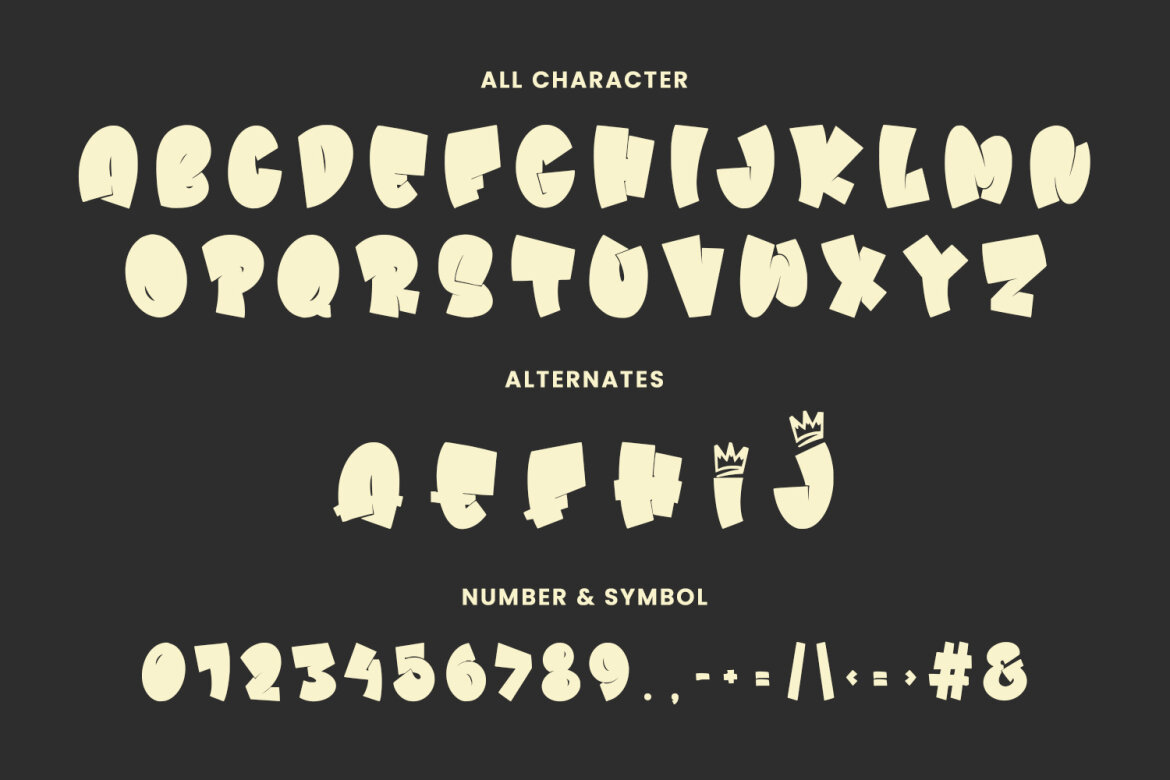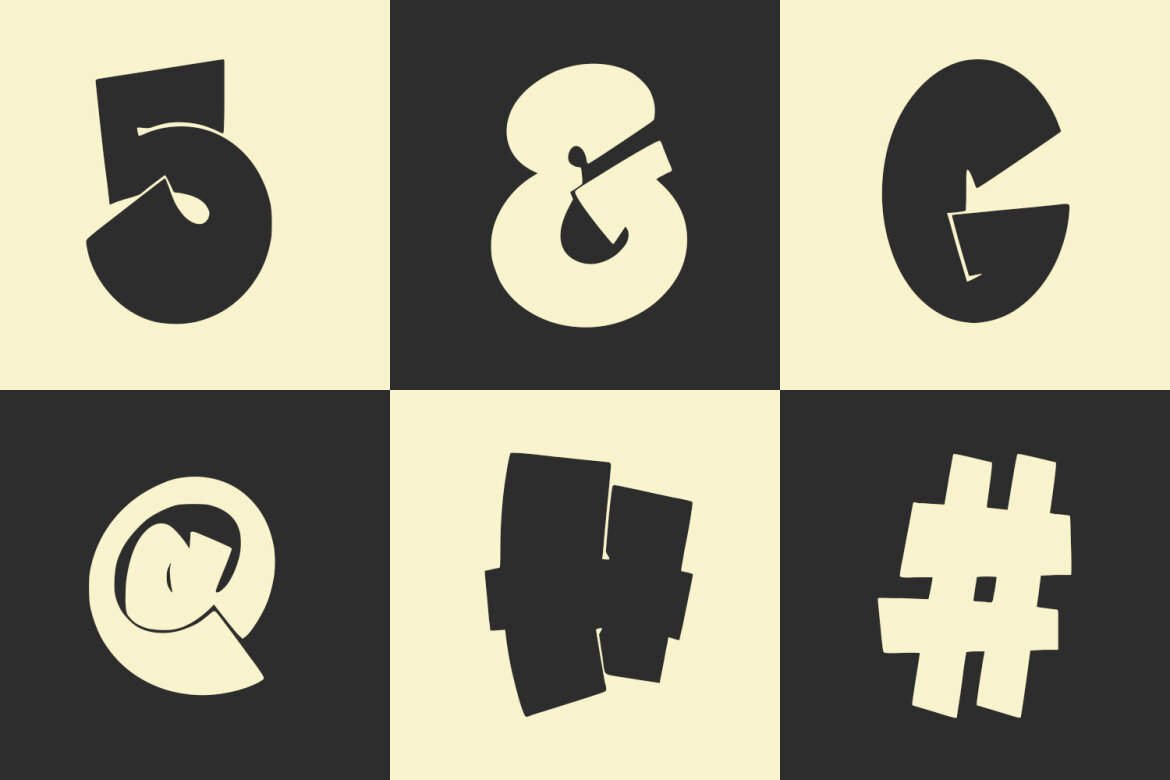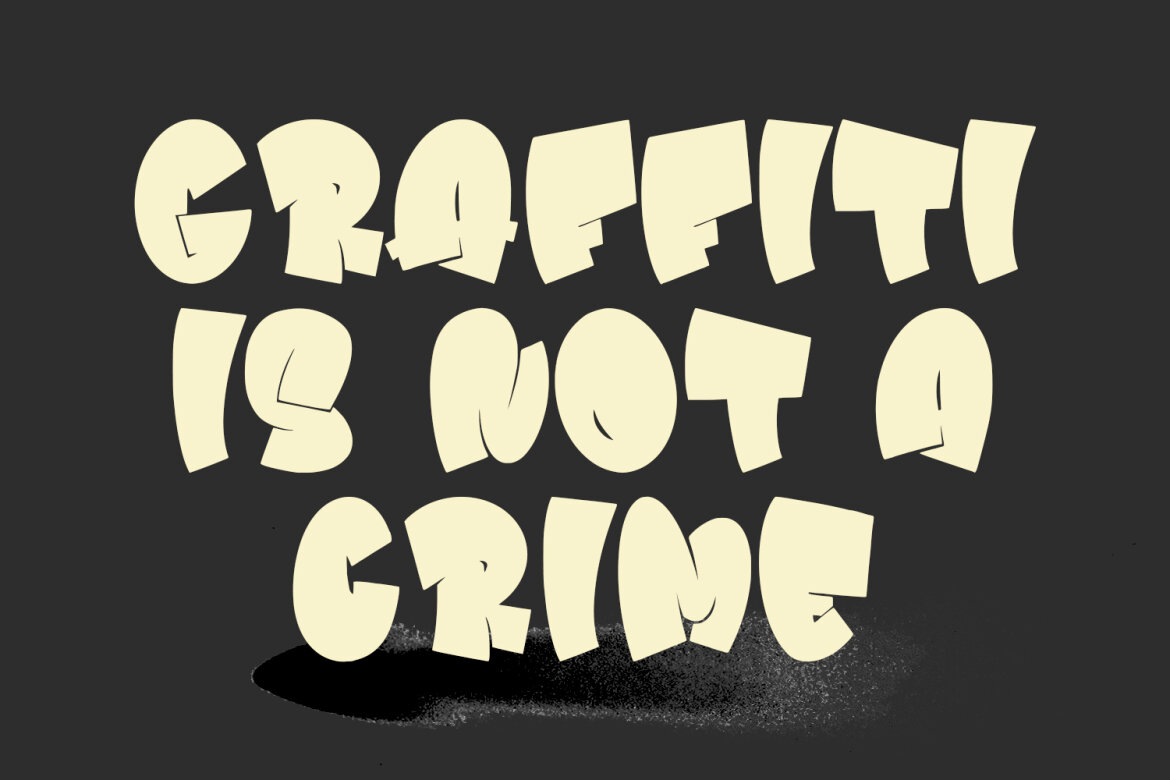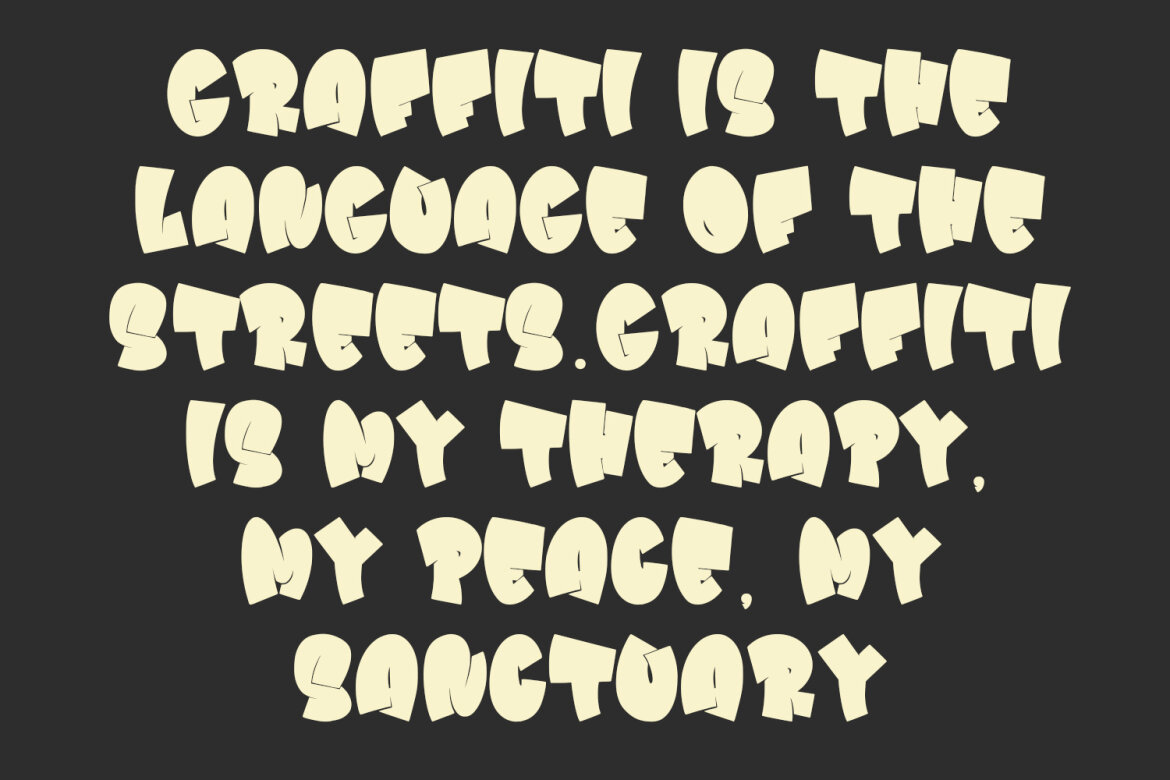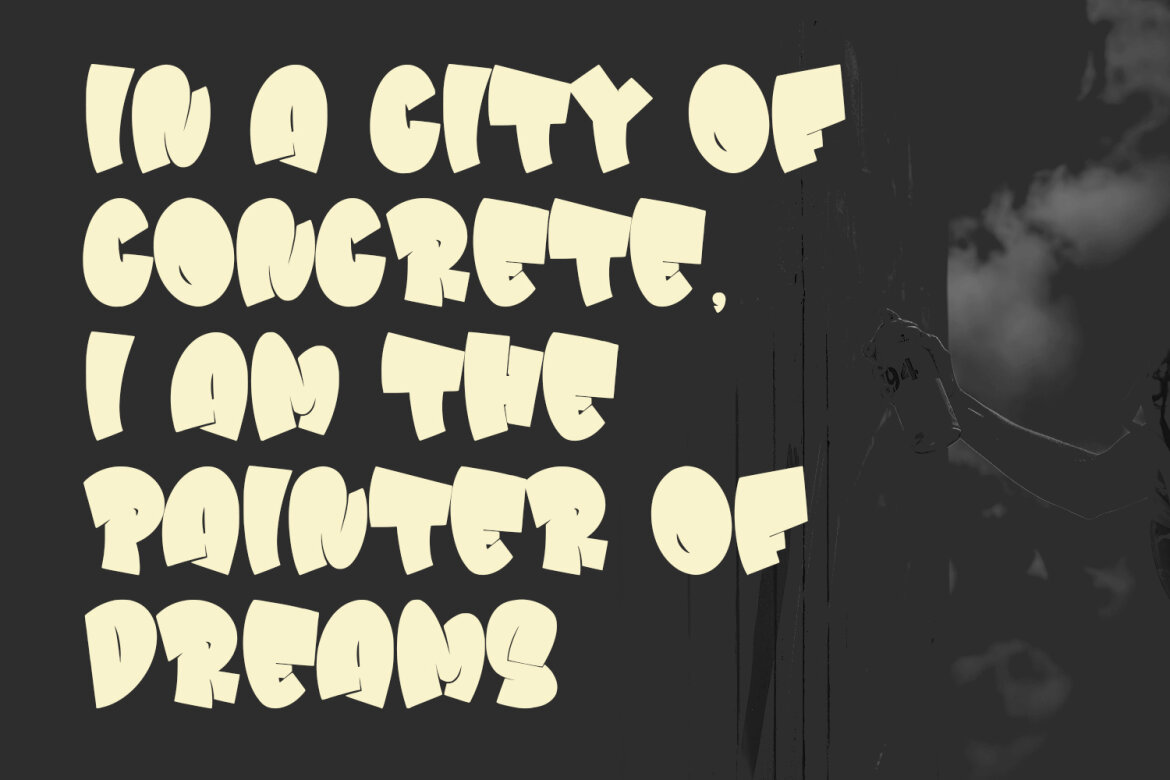
Jeggerz Summer FREE Typeface
Jeggerz summer display typeface. Heavy stroke, fun character with a bit of ligatures. To give you an extra creative work. Jeggerz summer display typeface support multilingual more than 100+ language. This font is good for logo design, Social media, Movie Titles, Books Titles, a short text even a long text letter and good for your secondary text font with script or serif. Make a stunning work with Jeggerz summer display typeface.